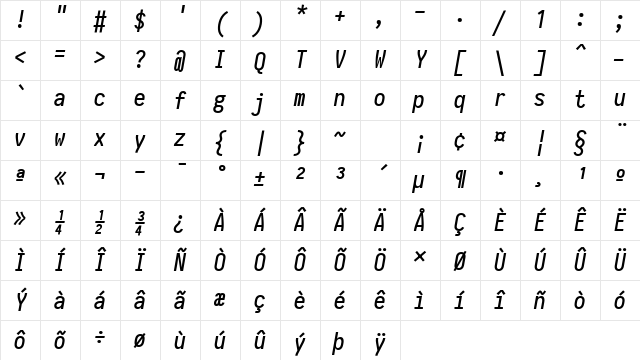
Iosevka NF Regular
Foundry: Belleve Invis
Designer: Belleve Invis
Complete Iosevka NF Regular glyph index. Displaying only characters natively supported by Iosevka NF Regular font.
Design Context for Iosevka NF
Iosevka NF is a composed and adaptable typeface that performs quietly and consistently across a wide range of design contexts.